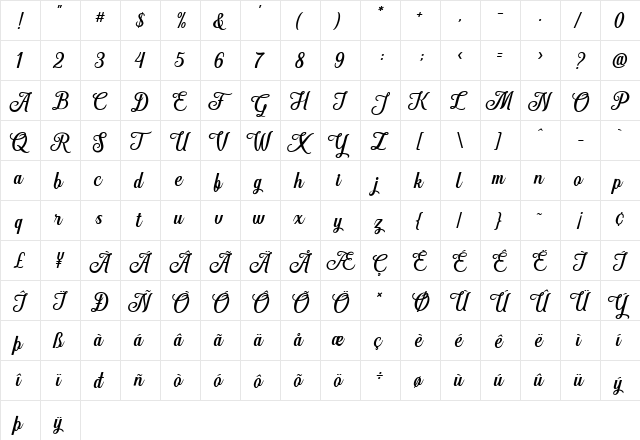
Hanleth Free Personal Use Regular
Design Context for Hanleth Free Personal Use Typeface
Hanleth Free Personal Use is a composed and adaptable typeface that performs quietly and consistently across a wide range of design contexts.